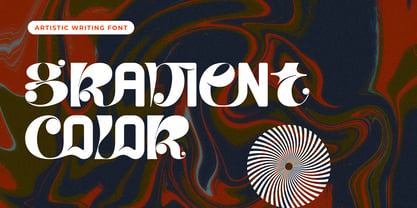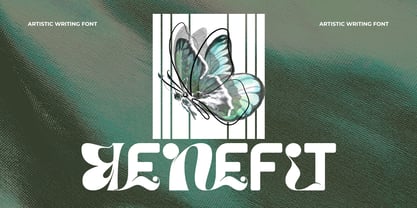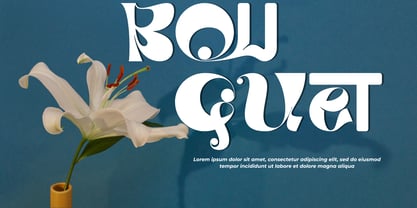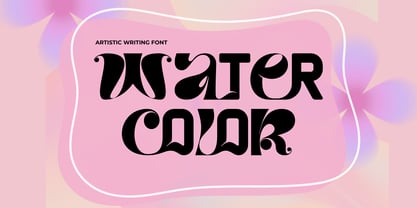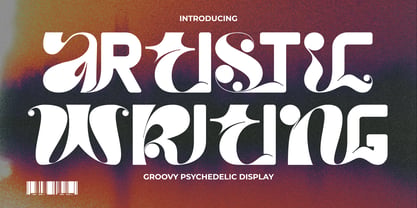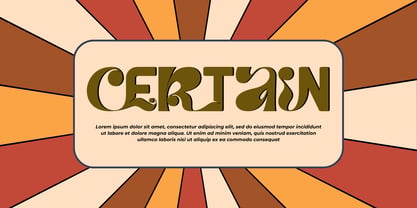
Artistic Writing
von 177Studio
Die Schriftfamilie Artistic Writing wurde von 177Studio entworfen und von 177Studio veröffentlicht. Artistic Writing enthält 2 Stile und Familienpaketoptionen. Mehr über diese Familie
Artistic Writing Font – Psychedelic Liquid & Organic Art Nouveau Display Font, liquid display font that seamlessly blends 1970s psychedelic aesthetics with modern acid graphics and Art Nouveau elegance. Defined by its ultra-bold fluid curves, graceful ball terminals, and embedded geometric dot accents, this typeface brings an irresistible retro-chic energy to your visual layouts.